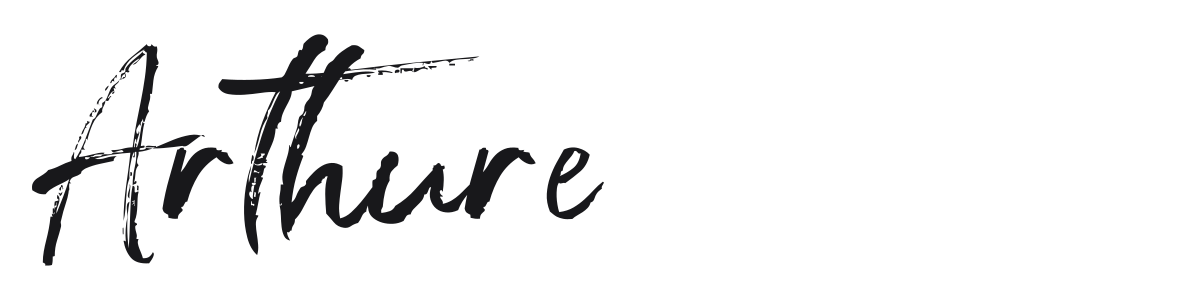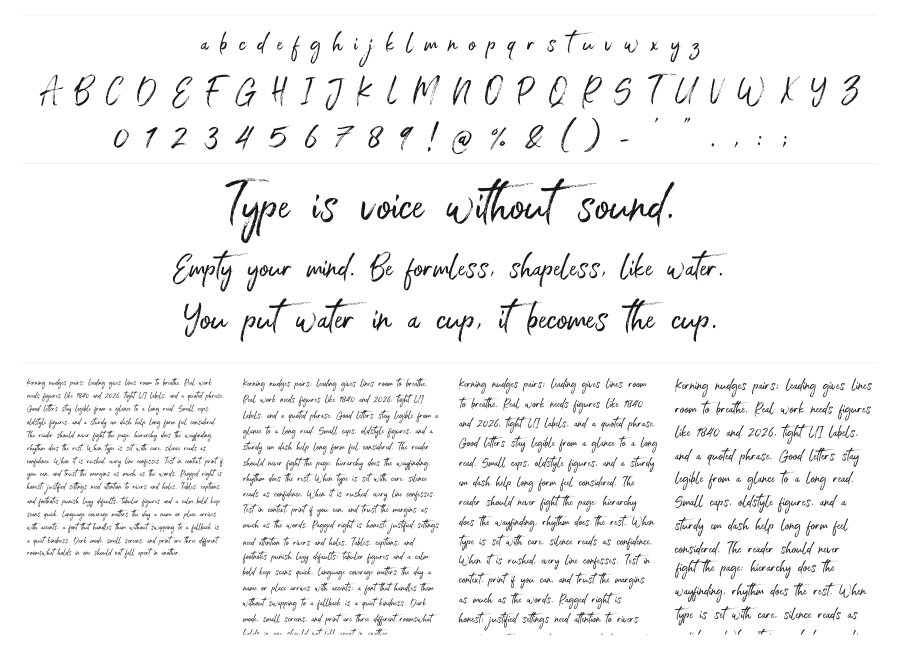
Arthure
Arthure is a rough brush script with the loose energy of ink dashed quickly across paper. The bristle texture and dramatic stroke contrast give it an authentically handmade quality that sits somewhere between street lettering and upscale packaging. It reads best large, where the ragged details and rhythmic flow come fully alive.